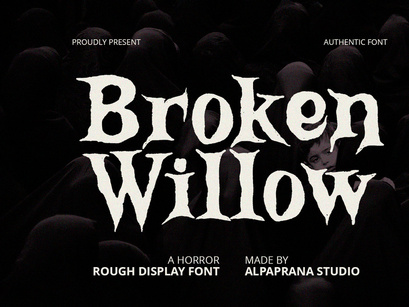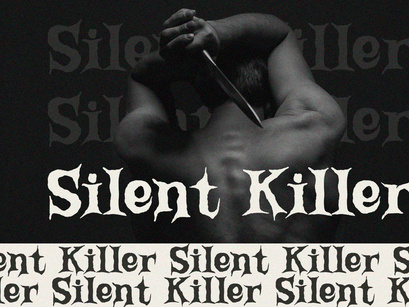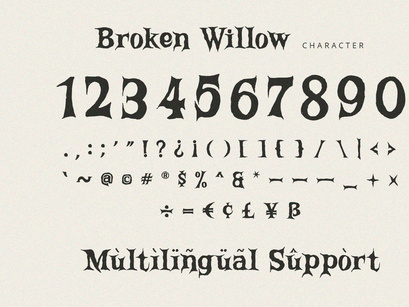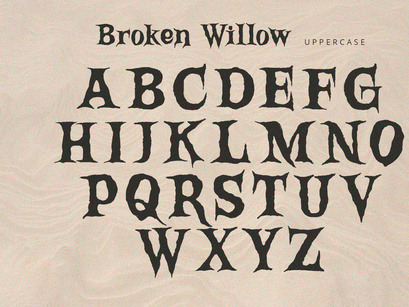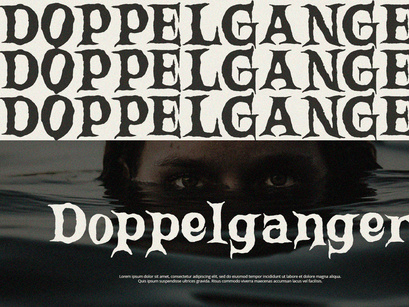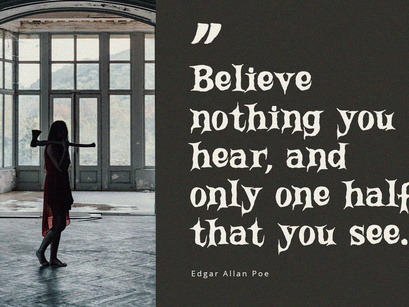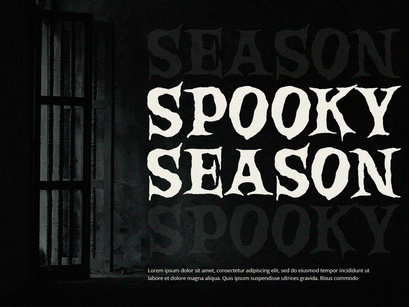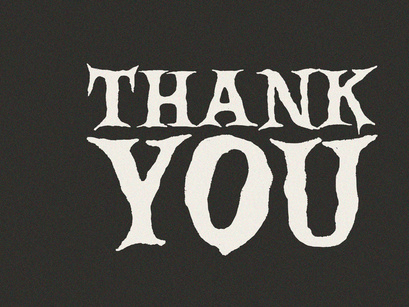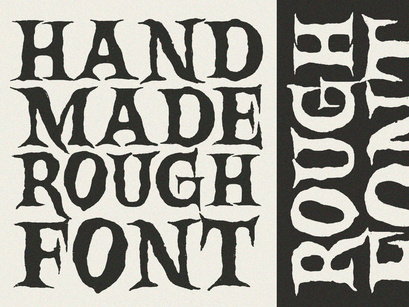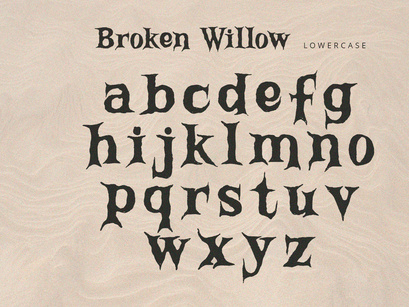
Broken Willow - Display Font
Broken Willow is display font with rough and scary feels. It will be perfectly used for Branding, Logo Design, Lettering, Logotype, Clothing, Poster, magazine, packaging, posters, shopping bags, t-shirts, book covers, photography, special events and other design project.